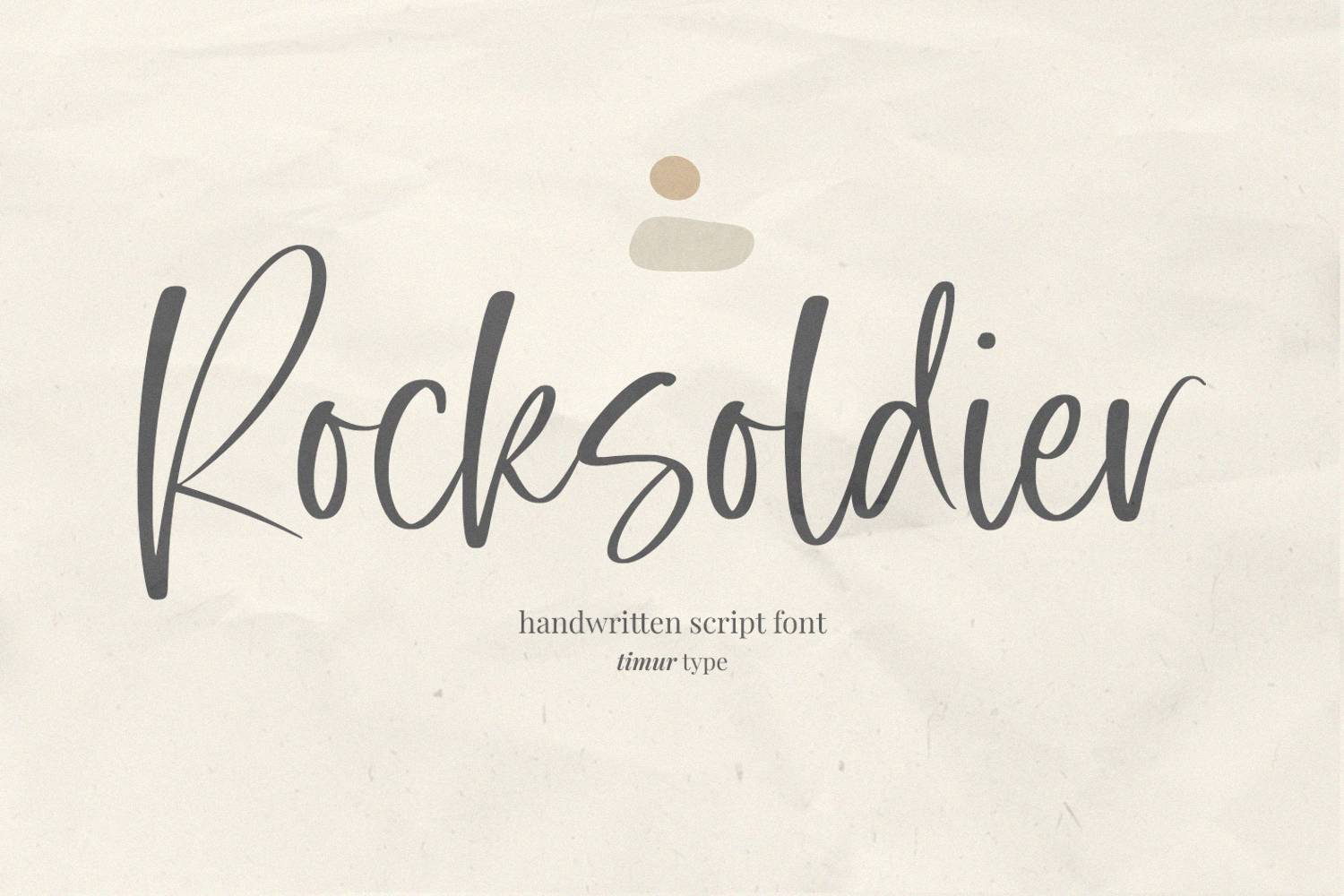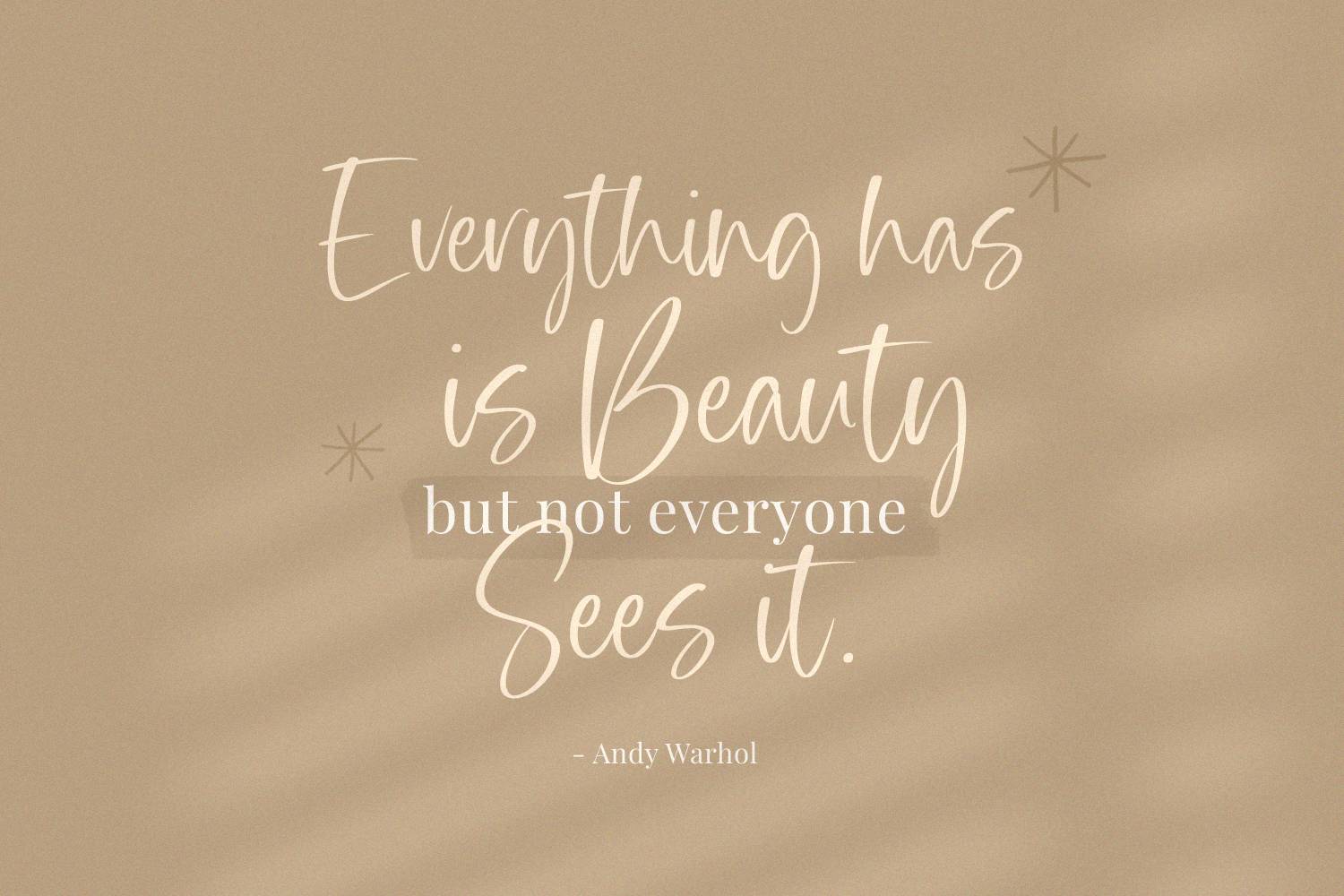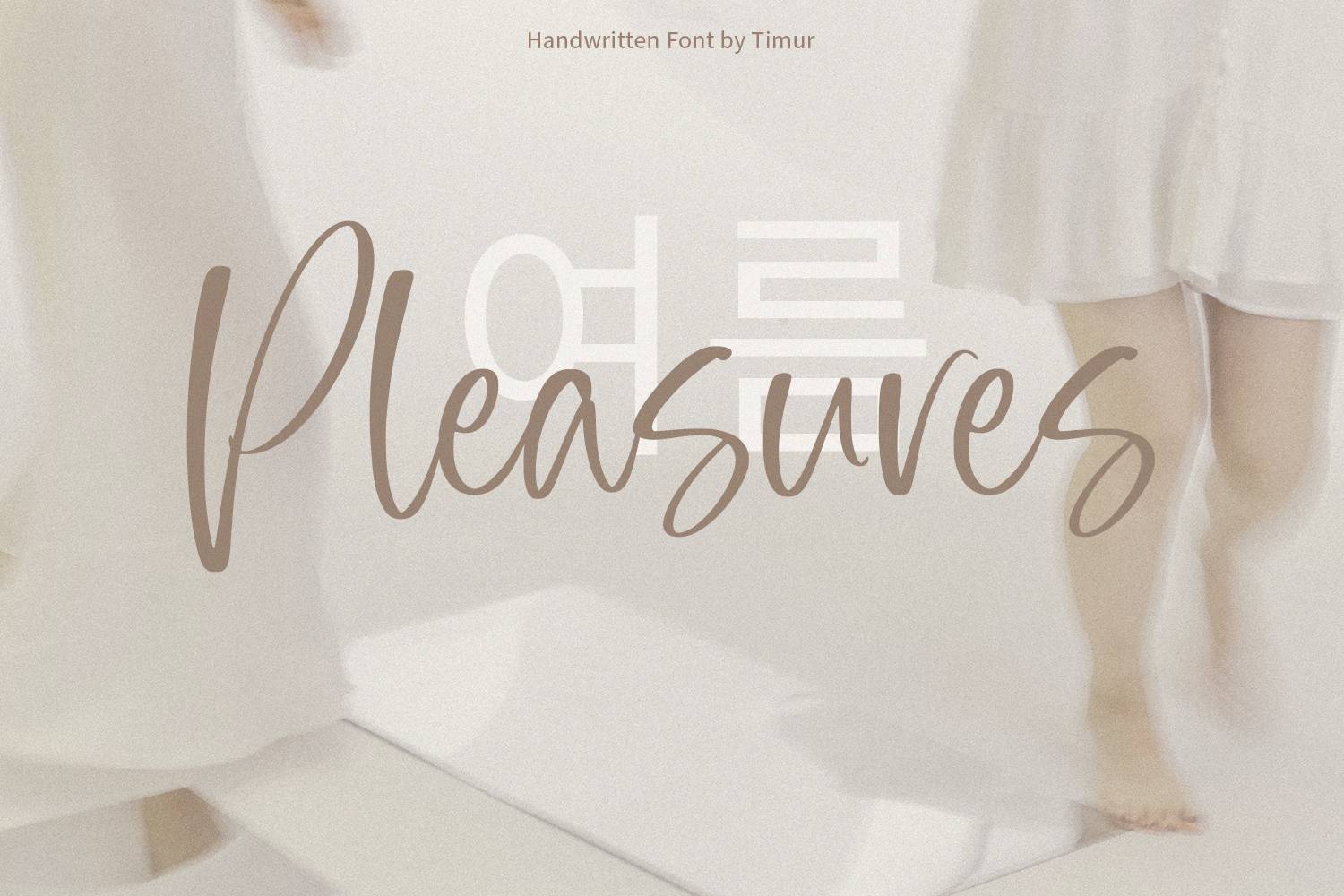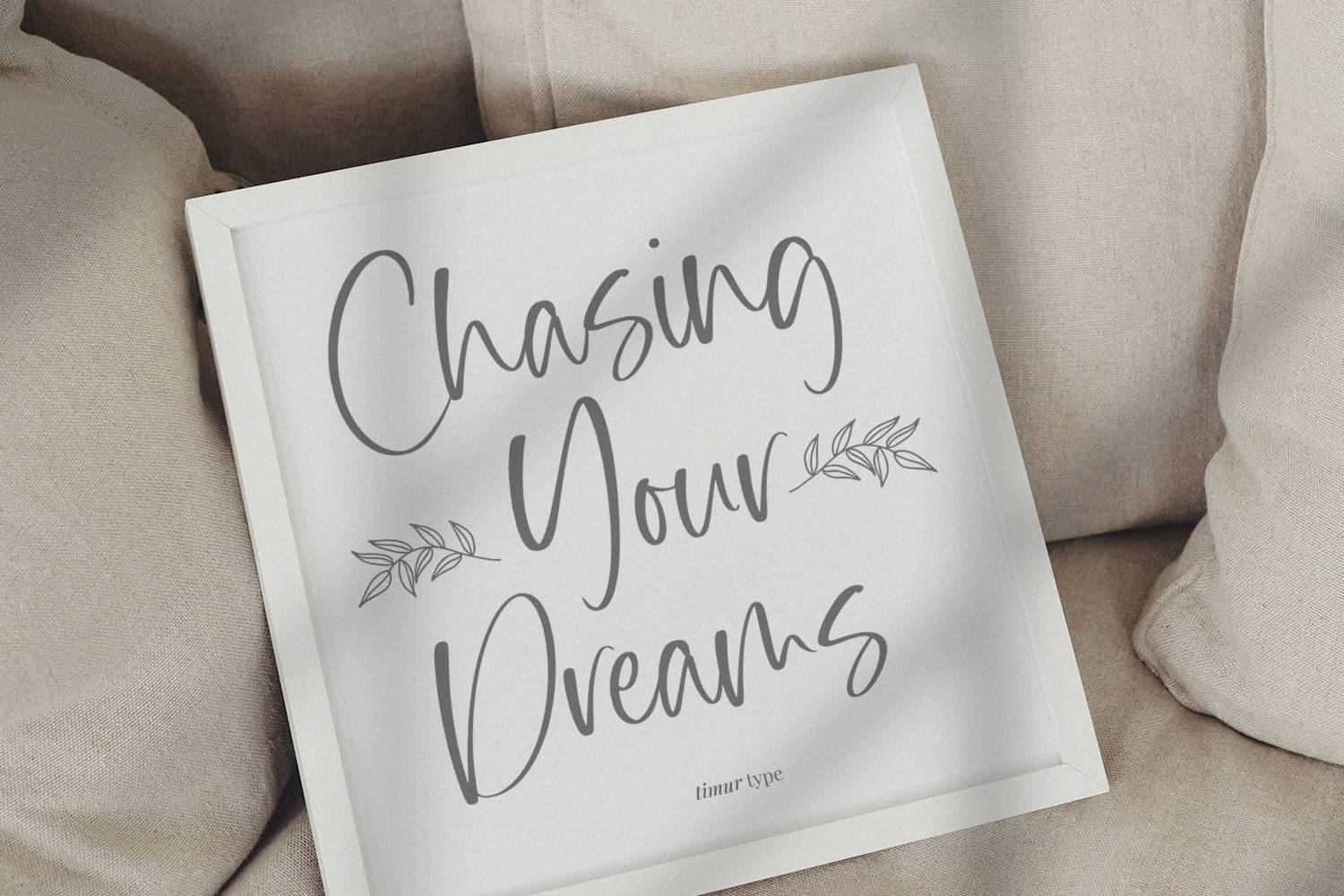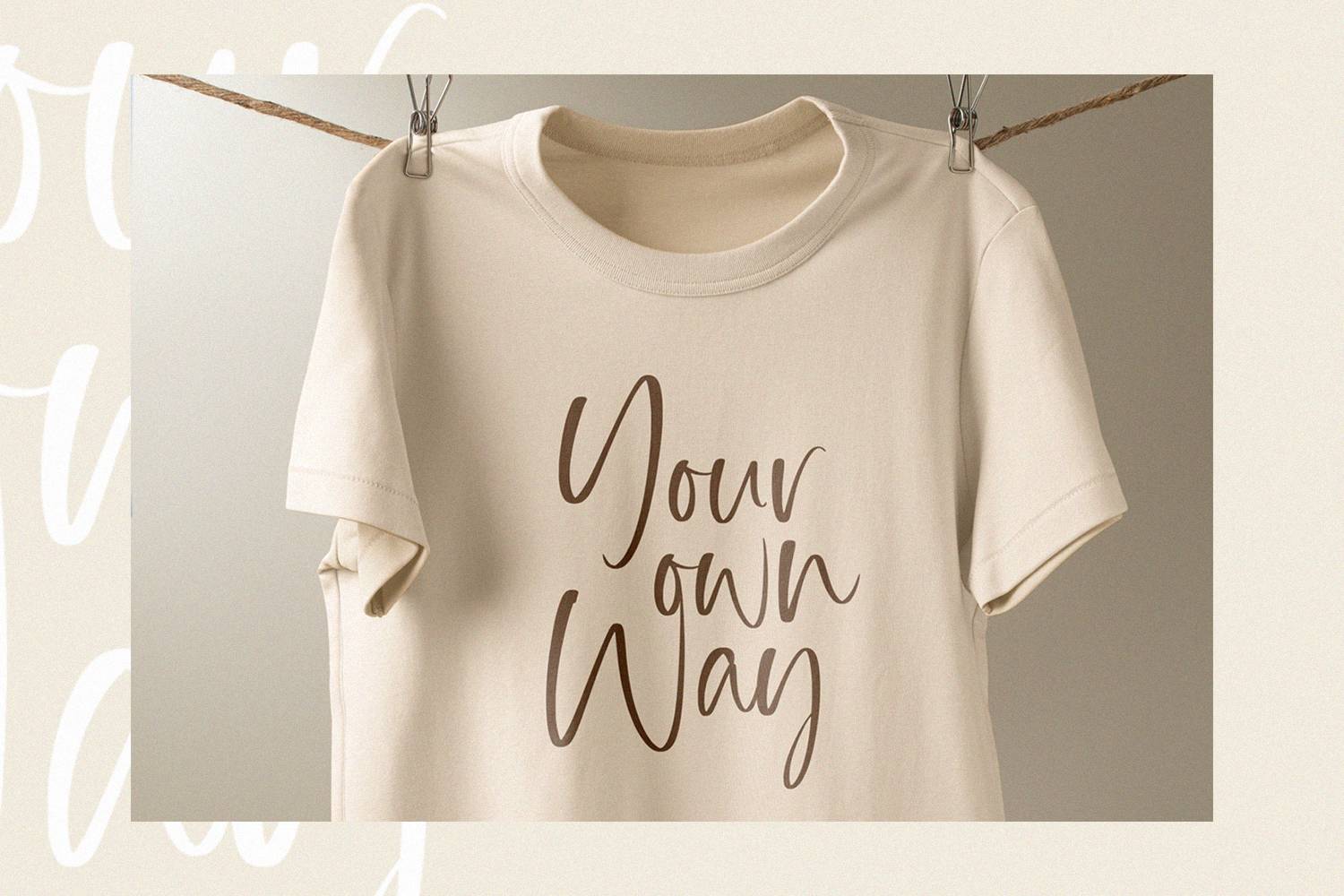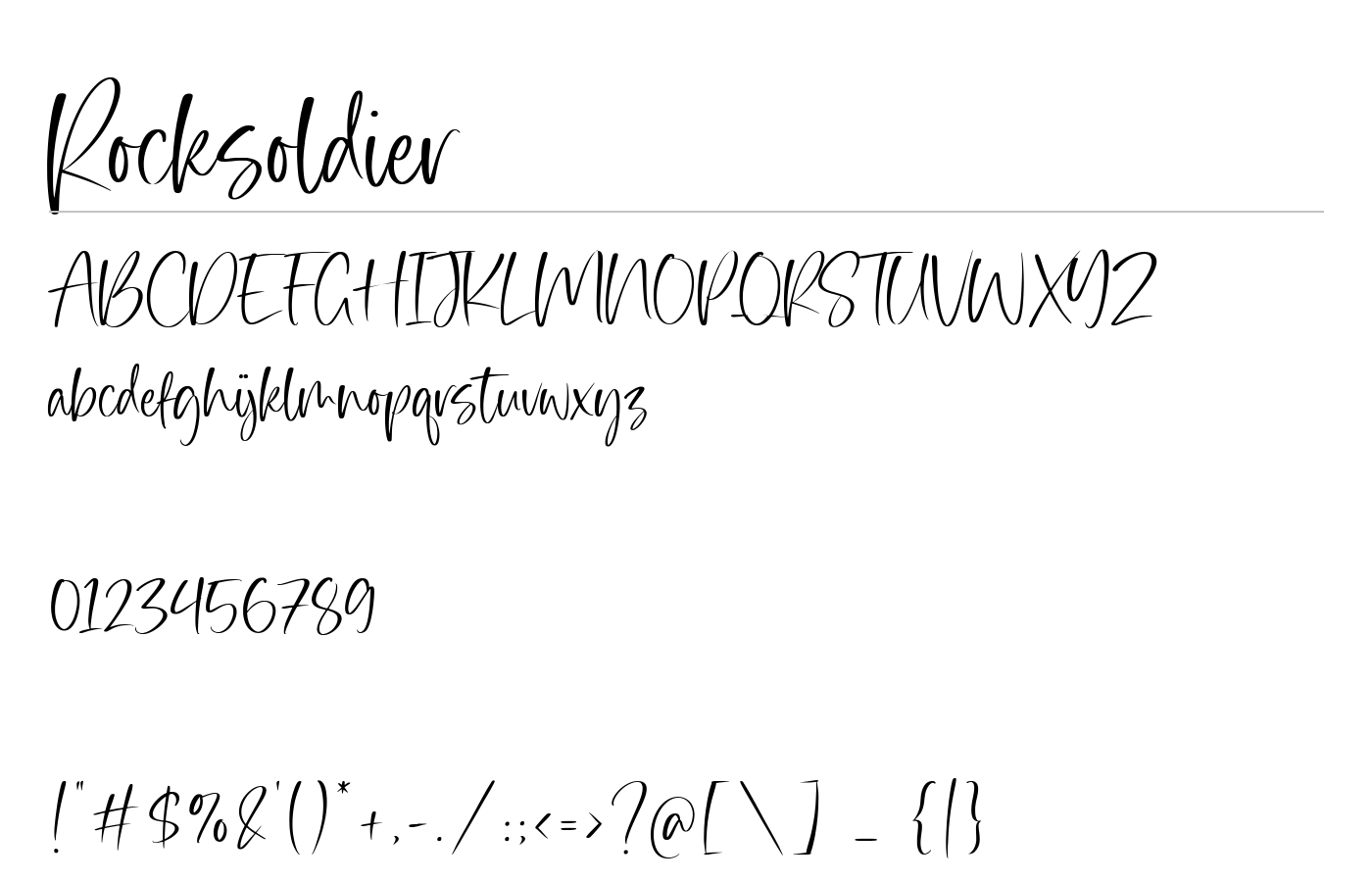
Rocksoldier is a slender, handwritten script font with a lively and casual feel. Its tall, narrow letterforms and varied stroke widths give it an energetic, personal touch, making it ideal for creative branding, invitations, and lifestyle projects where a friendly, approachable vibe is desired.
Rocksoldier Font